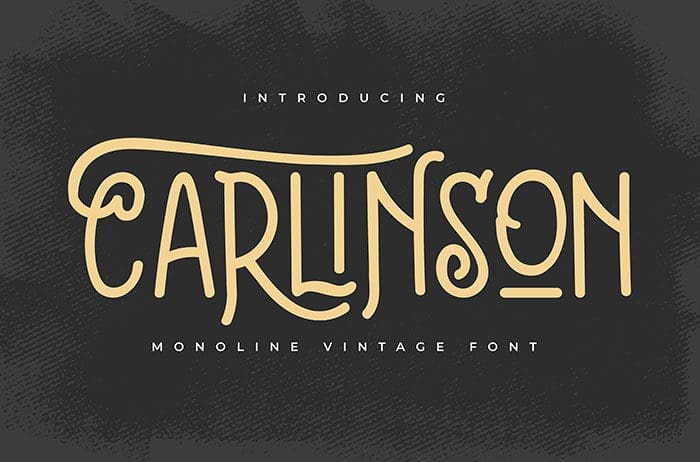
Carlinson is a unique and stylish Vintage Font. Retro and distinct, this font will complement any spectacular design idea. Thanks to Vunira Studio for sharing this font! Take a look at this portfolio for more of his stunning fonts.
Designed By : Vunira Studio